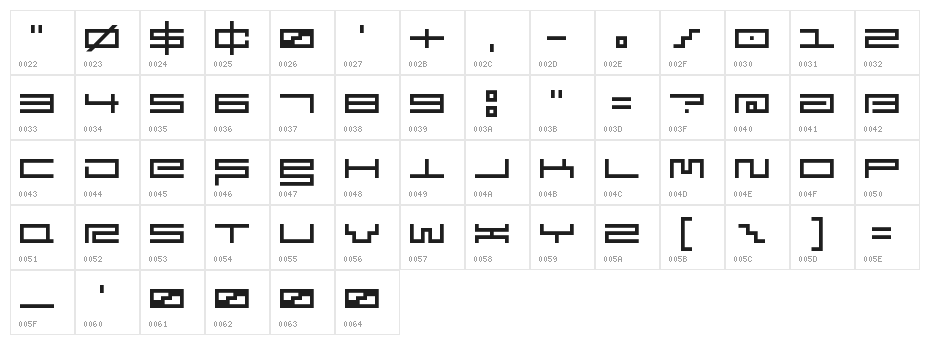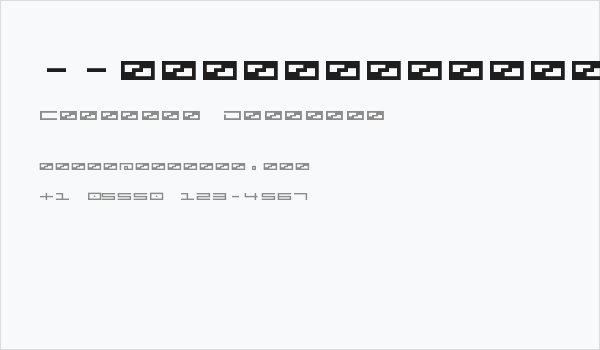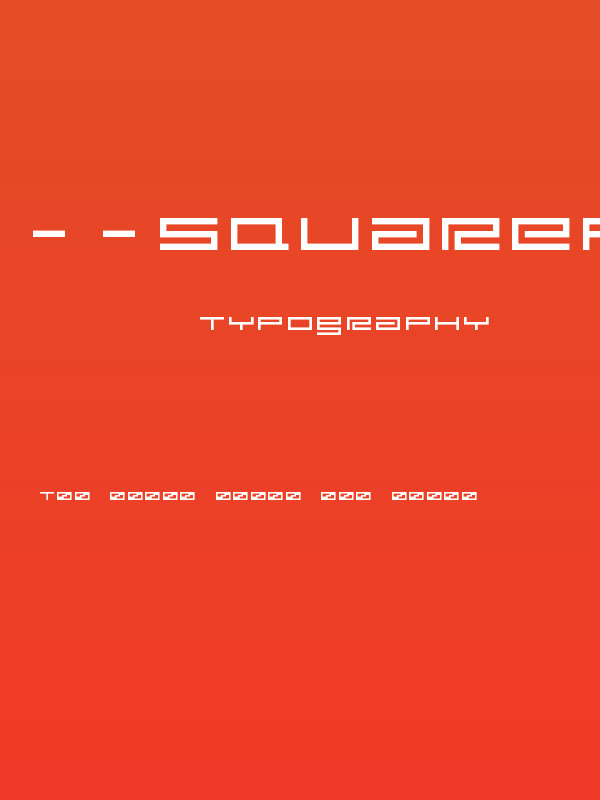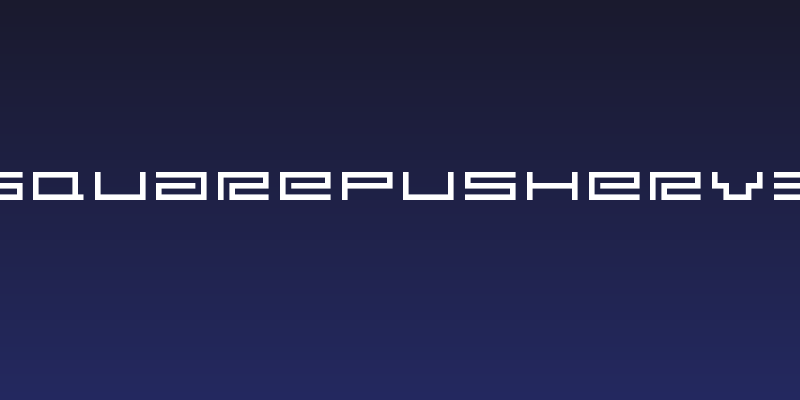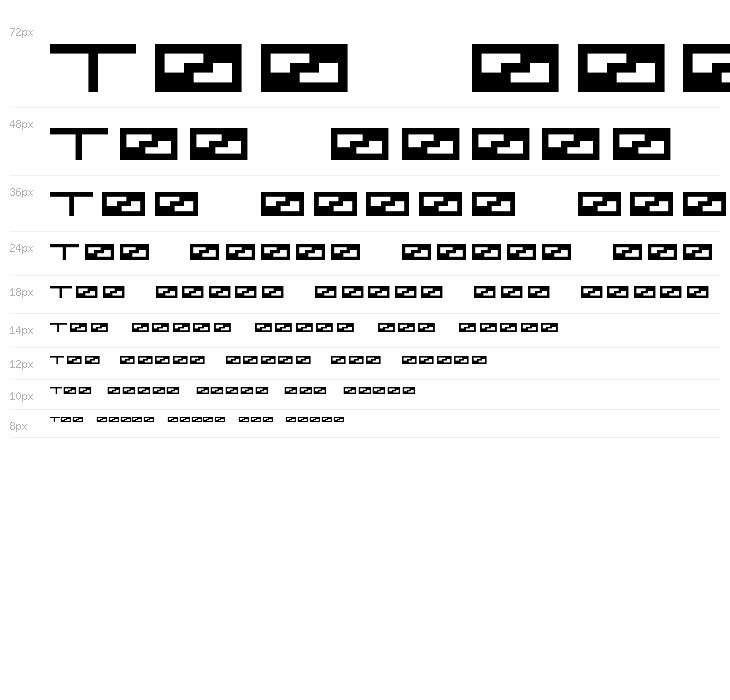
--squarepusherv3-- Font
--squarepusherv3-- Description
This font features a highly geometric and modular design, characterized by its square and angular shapes. Each character is constructed with a consistent grid-like pattern, giving it a futuristic and digital appearance. The uniformity in line thickness and the sharp corners contribute to its mechanical and structured look. The font maintains a consistent height across all characters, enhancing its orderly and precise aesthetic. This style is reminiscent of early digital displays or pixel art, making it ideal for projects that require a retro or tech-inspired feel.
Use CaseHeadlines, Logos, Digital displays
Proposed ProjectsIdeal for tech-themed designs, digital art projects, video game interfaces, and retro-style posters.